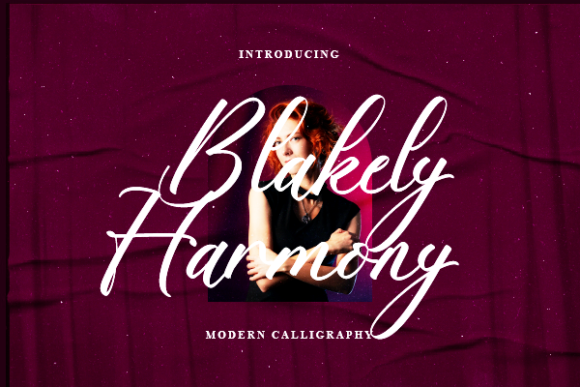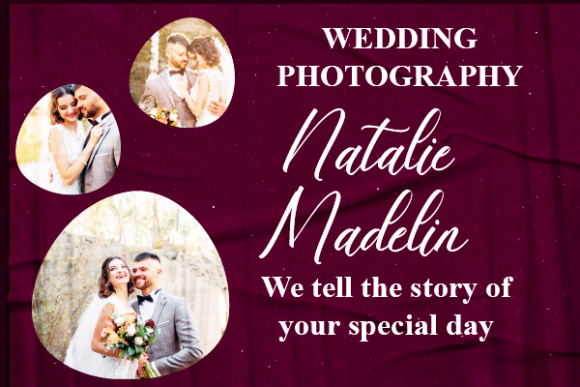
About Blakely Harmony Font
“Blakely Harmony” is a refined and fashionable script font that effortlessly exudes elegance and sophistication. Its delicate strokes and well-balanced characters make it an ideal choice for a wide range of design projects, elevating them to new levels of style and allure.
Imagine using “Blakely Harmony” for a high-end fashion brand’s logo. The font’s graceful and flowing letters add a touch of luxury, instantly conveying a sense of exclusivity and class. Whether it’s on clothing labels, shopping bags, or storefront signage, the font’s impeccable form enhances the brand’s identity and leaves a lasting impression.
For a t-shirt printing project, “Blakely Harmony” adds a unique and fashionable twist. Its cursive and artistic style can turn a simple t-shirt design into a statement piece. Whether it’s a bold slogan, a witty quote, or a stylish graphic, the font’s elegant appearance adds a touch of sophistication to the garment.
When creating packaging for creative products, “Blakely Harmony” brings a sense of refinement and artistry. Whether it’s for cosmetics, perfumes, or artisanal goods, the font’s delicate curves and smooth lines elevate the packaging design, making it visually appealing and enticing to potential customers.
In the realm of branding projects, “Blakely Harmony” shines on business cards, stationery, and marketing materials. The font’s sophisticated yet approachable vibe communicates professionalism while retaining a personal touch. Its versatility allows it to seamlessly adapt to various industries, from beauty and wellness to lifestyle and beyond.
For social media posts and creative content, “Blakely Harmony” adds a touch of elegance to captions, quotes, and promotional graphics. The font’s refined appearance instantly captures attention and enhances the visual appeal of the content, making it stand out in crowded feeds.
When applied to wedding invitations, “Blakely Harmony” sets a romantic and enchanting tone. The font’s graceful and flowing letters evoke a sense of love and celebration, making it a perfect choice for capturing the essence of a couple’s special day.
In summary, “Blakely Harmony” is a delicate and fashionable script font that brings an air of sophistication and allure to any design project. Its versatility makes it suitable for branding, t-shirt printing, packaging, social media, and more. With its impeccable form and timeless elegance, “Blakely Harmony” ensures that your designs will look extraordinary and captivating in various contexts.